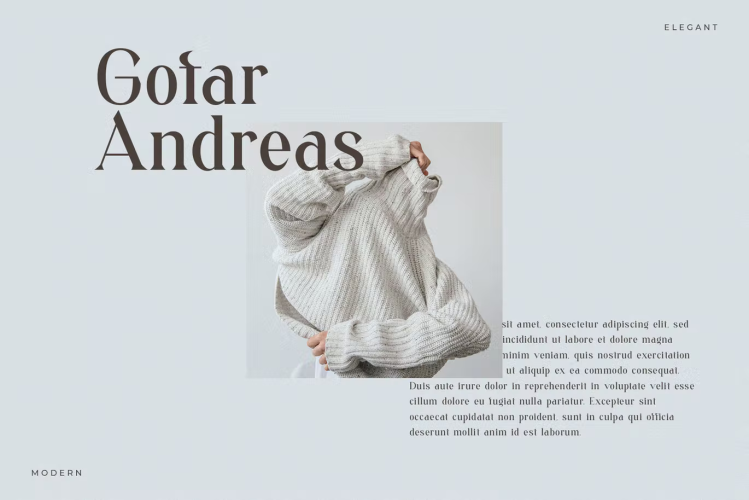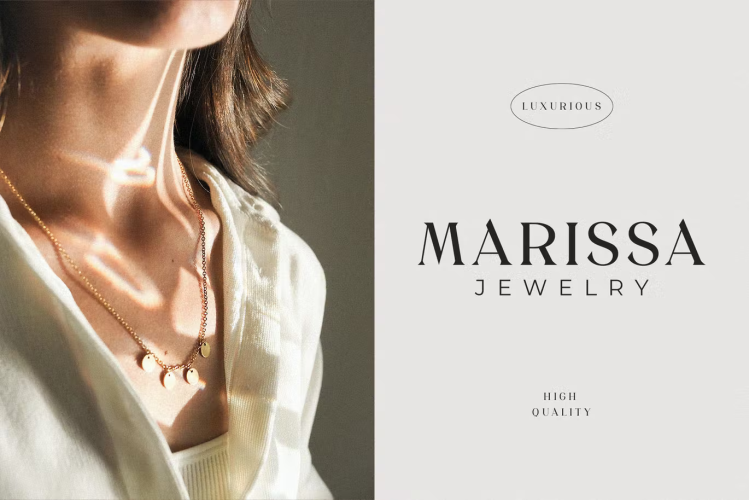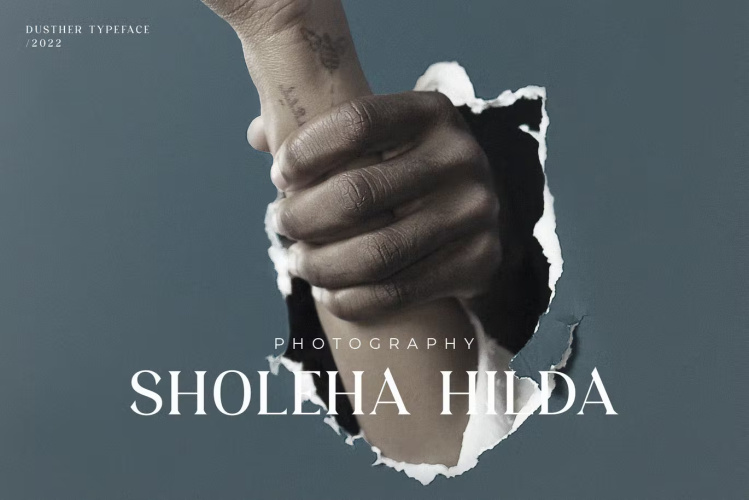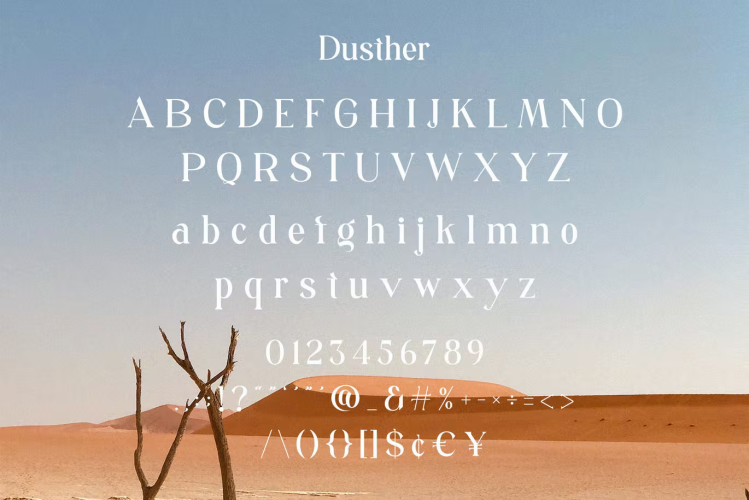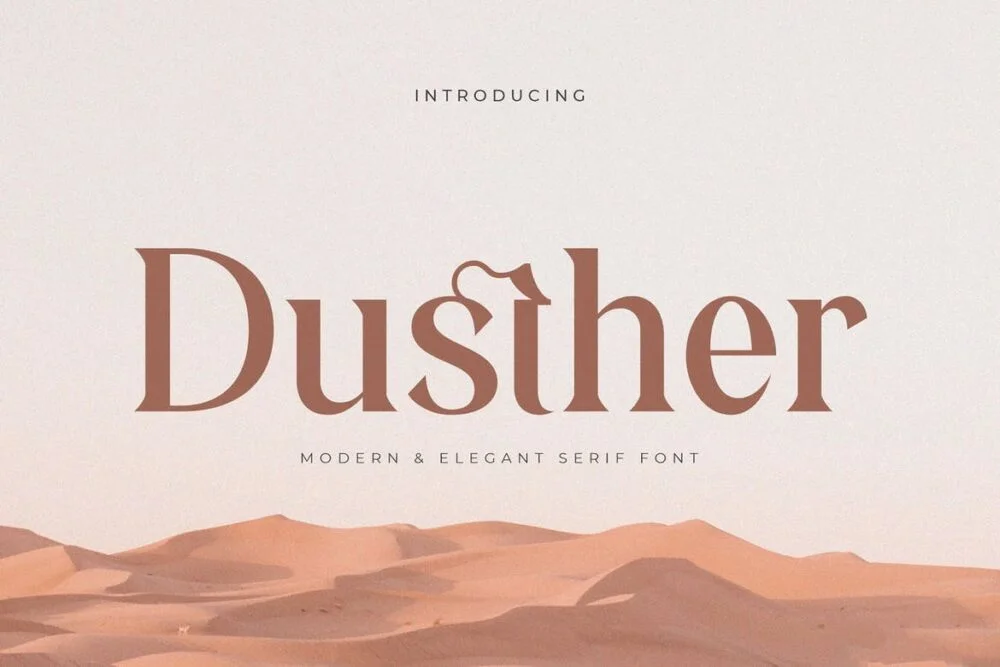
Dusther Font
Dusther Font is a modern and elegant typeface, best used as a display for headings, logos, branding, magazines, product packaging and invitations. Dusther come with clean lines and smooth curves give any project an extra touch of class.
Where Dusther Font works best
Headlines and titles
Dusther Font has enough character to carry a headline on its own; set it large and keep the supporting text plain.
Brand and product names
Short strings are where this typeface is strongest — a name, a label, a cover line.
Social and video graphics
Set Dusther Font over a flat colour or a quiet photograph so the letterforms stay the focus.
What kind of work does Dusther Font suit?
It sits in the Modern Fonts group and reads as branding, clean, elegant, modern. That makes it a candidate wherever those qualities help: headings, packaging, social graphics and brand work. Set it at the size you plan to use before deciding.